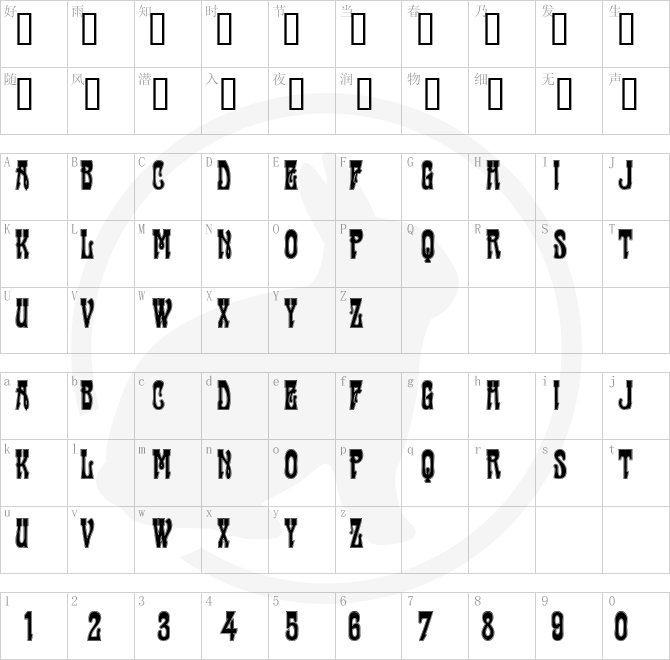
- Font Name:CabaretContour
CabaretContour.ttf is a very beautiful artistic font, CabaretContour.ttf is widely used in the design and printing of various books and pictures,CabaretContour.ttf has a strong visual impact,CabaretContour.ttf is a commonly used font in newspapers, magazines and books, and is used in posters, e-commerce Poster design, store design, logo design, font design and other fields.CabaretContour.